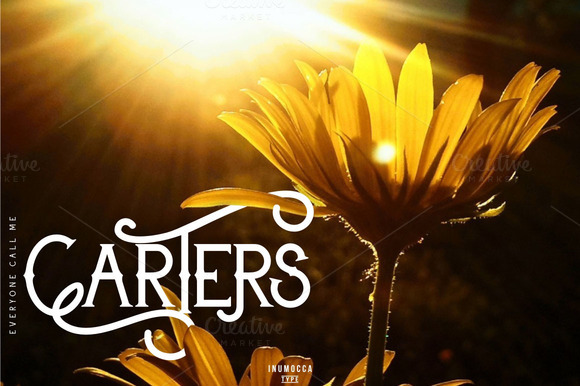
Carters Font
**Unleash the Timeless Allure of Carters Font**
Immerse yourself in the timeless elegance of Carters Font, a modern classic that transcends the ordinary. Experience the captivating beauty of typography, where each letter becomes an artistic masterpiece.
**Elevate Your Brand with Confidence**
Carters Font empowers you to elevate your brand identity with sophistication and style. Its versatile nature seamlessly complements logos, catalogs, and marketing campaigns, ensuring your message resonates with unwavering impact.
**Capture Hearts with Unforgettable Designs**
Unleash your creativity with Carters Font, the perfect canvas for stunning book covers, posters, and invitations. Every word you craft will evoke a symphony of emotions, captivating your audience with undeniable allure.
**Express Yourself with Limitless Possibilities**
Carters Font opens up a realm of endless possibilities, inviting you to express your unique voice. From intricate wedding invitations that evoke a timeless romance to bold posters that command attention, the possibilities are boundless.
**Indulge in Typographic Bliss**
Immerse yourself in the exquisite craftsmanship of Carters Font, where each character is a testament to typographic excellence. Its modern classicism blends seamlessly with a touch of nostalgia, creating a harmonious balance that captivates the senses.
**Embrace the Allure of Carters Font**
Join the ranks of discerning creatives who have succumbed to the undeniable charm of Carters Font. Experience the transformative power of typography as you craft designs that leave an enduring impression.